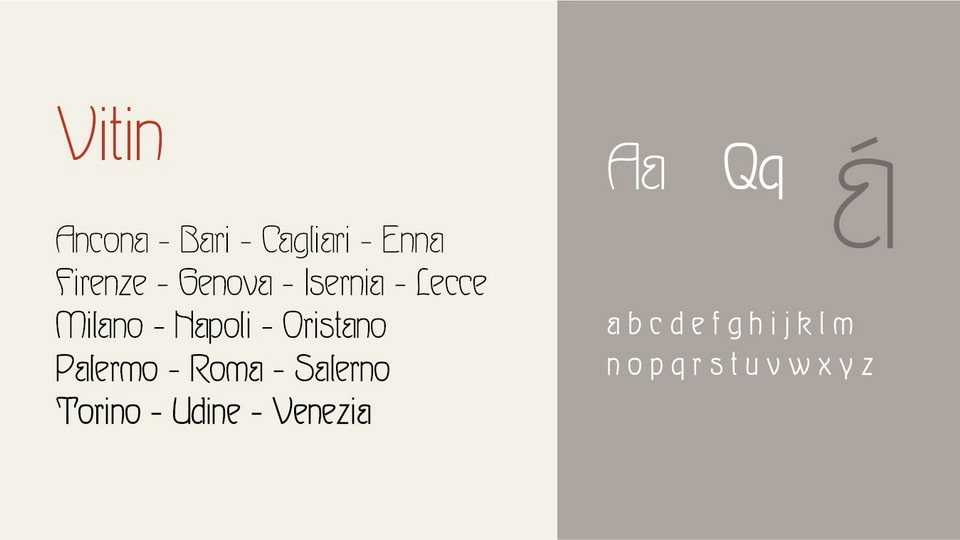
Download Vitin font, a variable typeface based on scans of the Wettin font, designed by Heinz Keune for Schelter & Giesecke in 1902. Vitin is the ancient name of the city of Wettin.
Designer: Michele Casanova